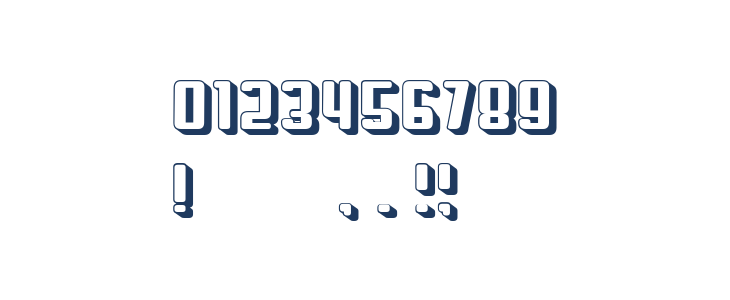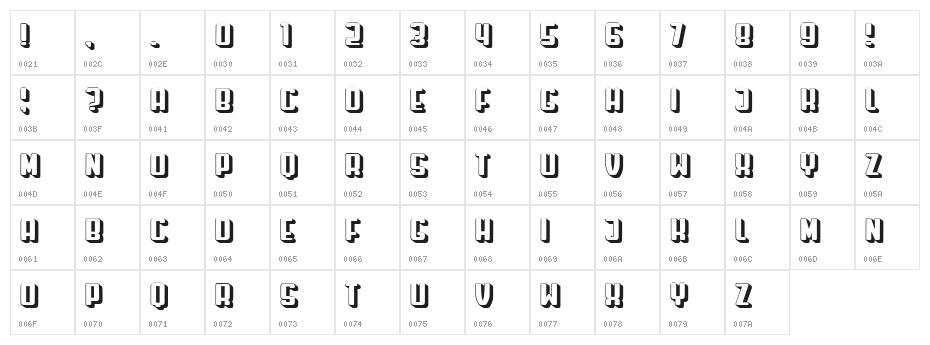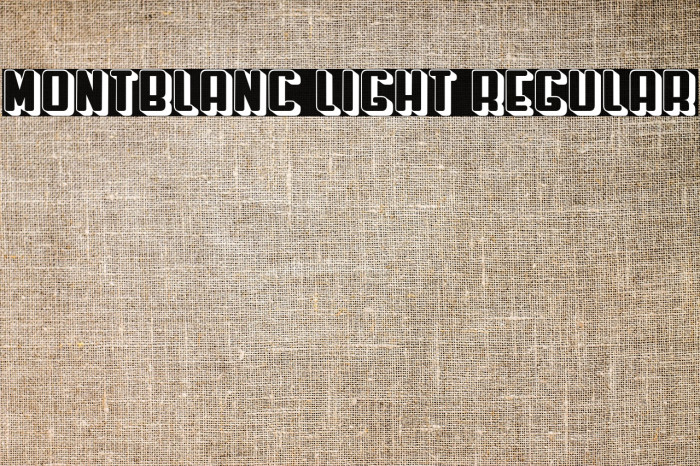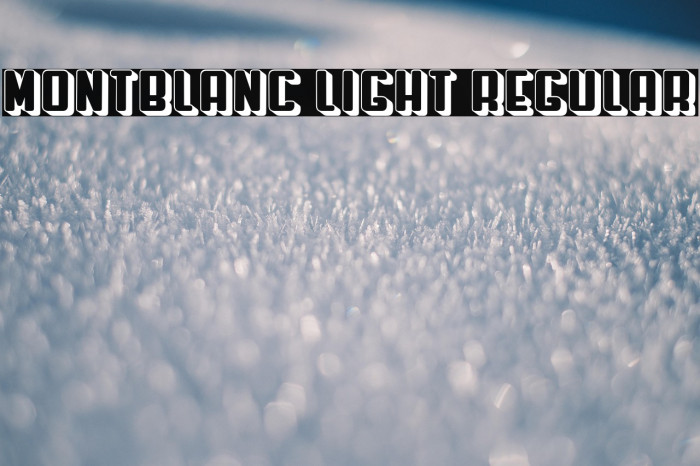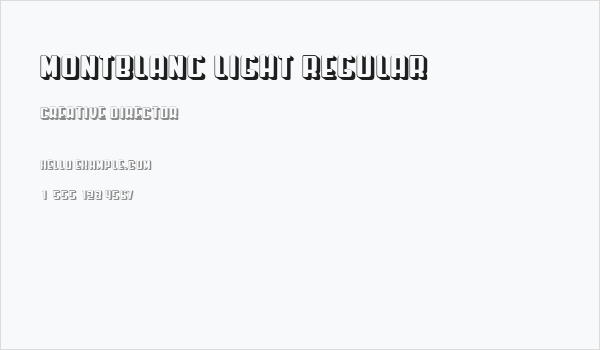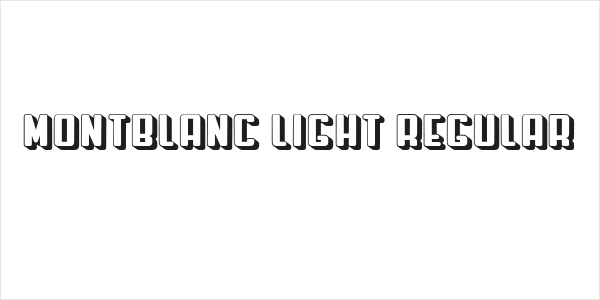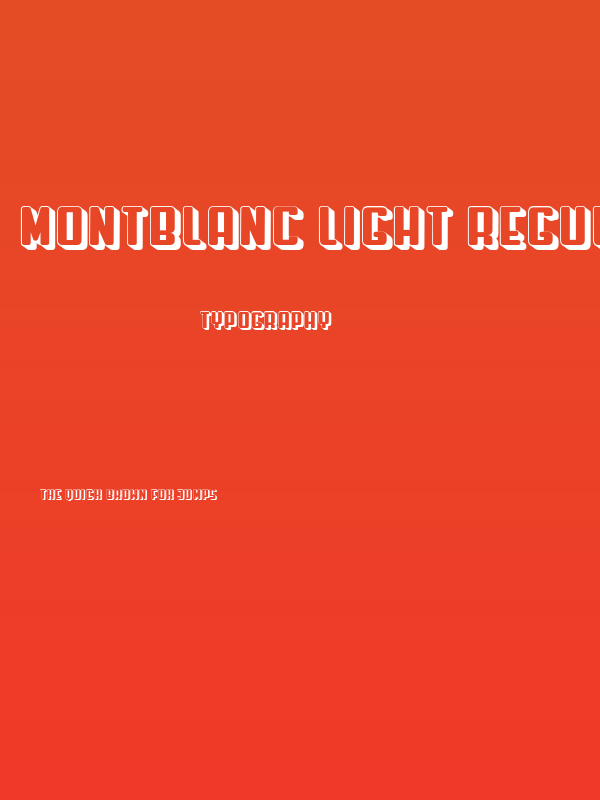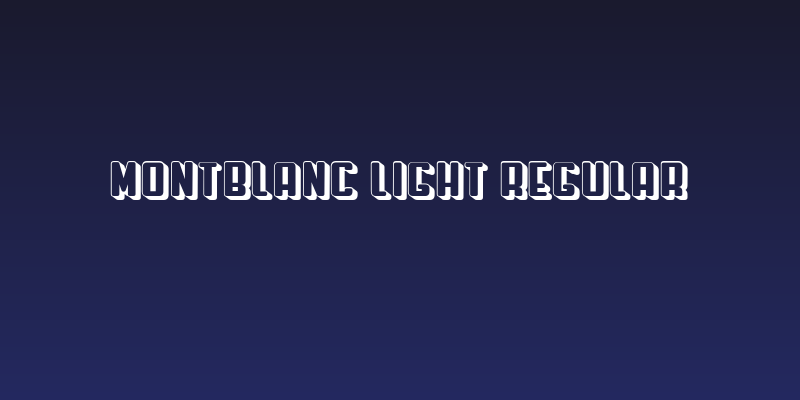
Montblanc Light Regular Font
Montblanc Light Regular Description
This font features a bold, three-dimensional appearance with a strong shadow effect that gives it a striking, standout look. The characters are blocky and geometric, with a consistent width and height that create a uniform appearance. The shadowing adds depth and a sense of movement, making each letter pop off the page. The uppercase and lowercase letters maintain a cohesive style, with sharp angles and clean lines. The numerals and special characters are designed to match the bold aesthetic, ensuring consistency across all text elements. This font is ideal for creating eye-catching headlines or logos that require a modern and impactful design.
| Proposed Projects | Ideal for branding, poster design, and any project needing a bold, modern look. |